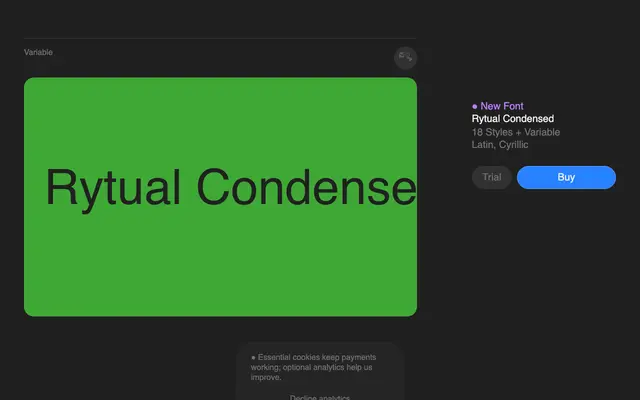
Rytual Condensed
A condensed grotesque sans by Petr Kučera, offered in 18 styles plus a variable font with Latin and Cyrillic coverage.
Designed by Petr Kučera and released by Superior Type, Rytual Condensed is a narrow grotesque that grew from a custom commission into a full family. It spans nine weights from Thin to Black with matching italics and is available as a variable font for flexible weight interpolation. Latin and Cyrillic script support, alongside 14 stylistic sets and OpenType features including oldstyle figures and fractions, make it suited to editorial and display applications.
A condensed sans-serif with grotesque characteristics, presented as a narrow counterpart to the Rytual family, with upright and italic cuts across multiple weights.